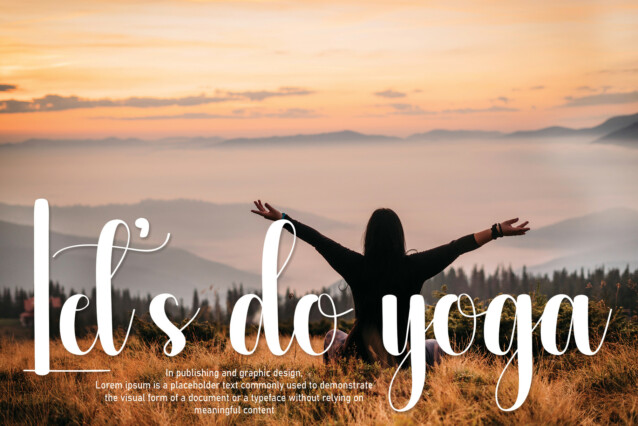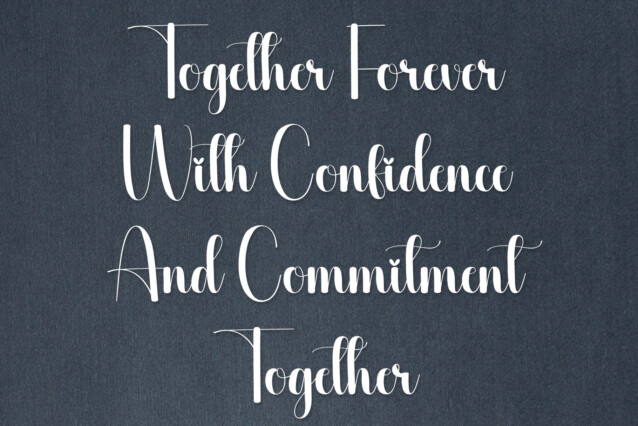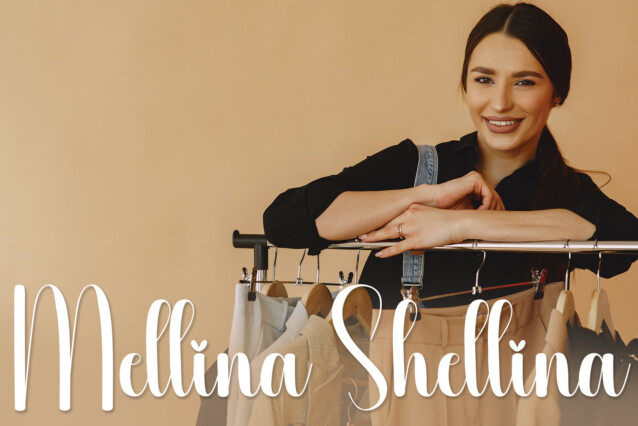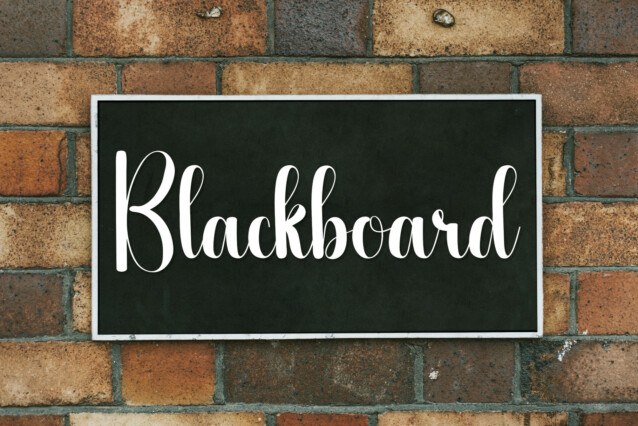
Bundle Script Font
Bundle Script Font is a luxurious and trendy script font perfect for making a statement. It features elegant, flowing characters that provide a unique and eye-catching touch to any design. Its smooth curves and modern design give it a sophisticated yet stylish look that is sure to turn heads